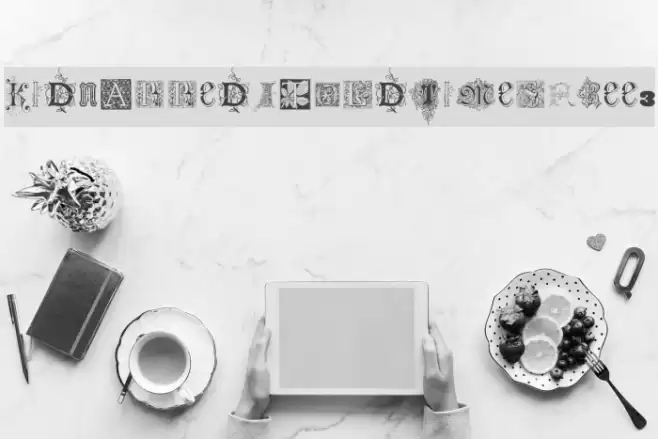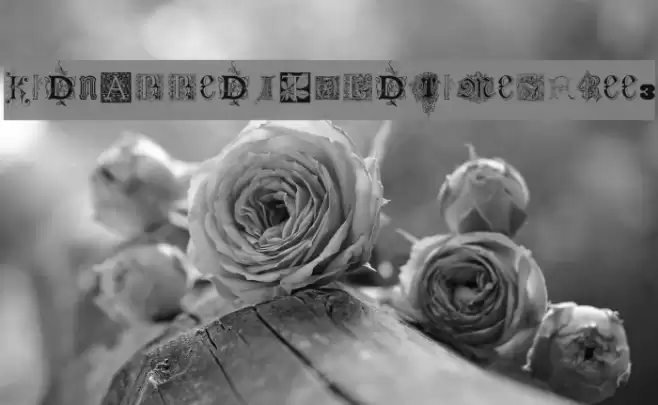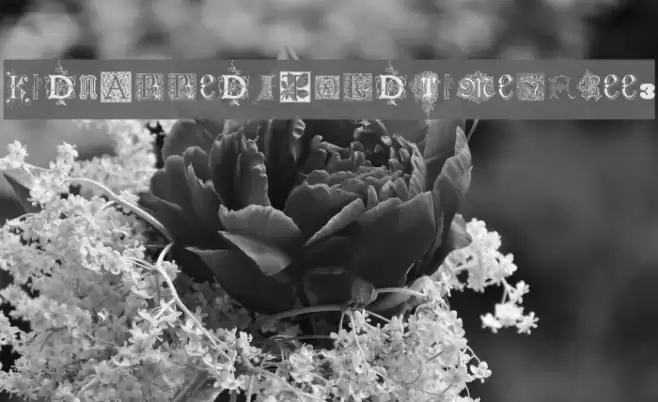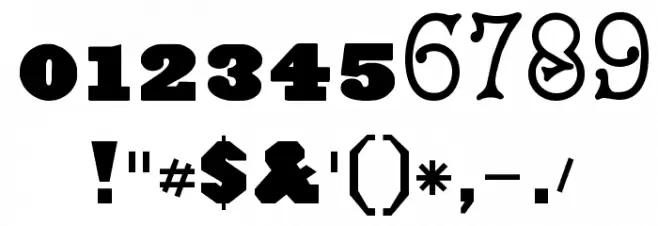
Kidnapped At Old Times Free 3 Font
Kidnapped At Old Times Free 3 Description
This font is a highly decorative and ornate typeface that features intricate designs within each character. The uppercase letters are embellished with elaborate patterns, giving them a vintage and artistic appearance. The lowercase letters maintain a similar style, with some characters featuring flourishes and unique shapes. The numbers are bold and distinct, providing a strong visual presence. Special characters are also included, each with its own decorative flair. This font is ideal for projects that require a historical or artistic touch, offering a unique and eye-catching aesthetic.
An ornate and decorative font with intricate patterns and vintage flair from Uncategorized fonts.
- Proposed Projects: Ideal for vintage posters, artistic book covers, historical event invitations, and decorative signage.
- Overall Style: Vintage
- Use Case: Headlines, Logos, Decorative text